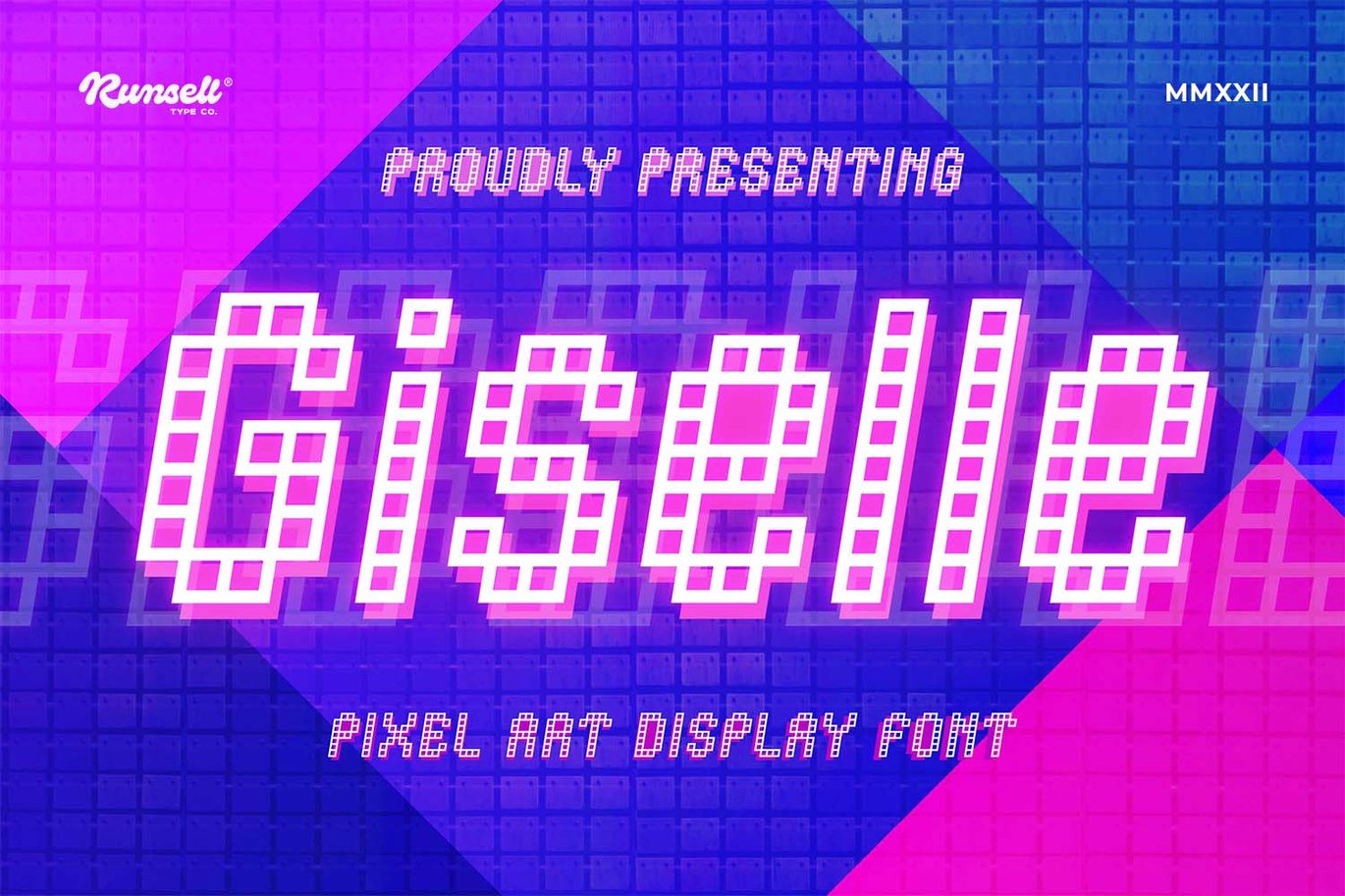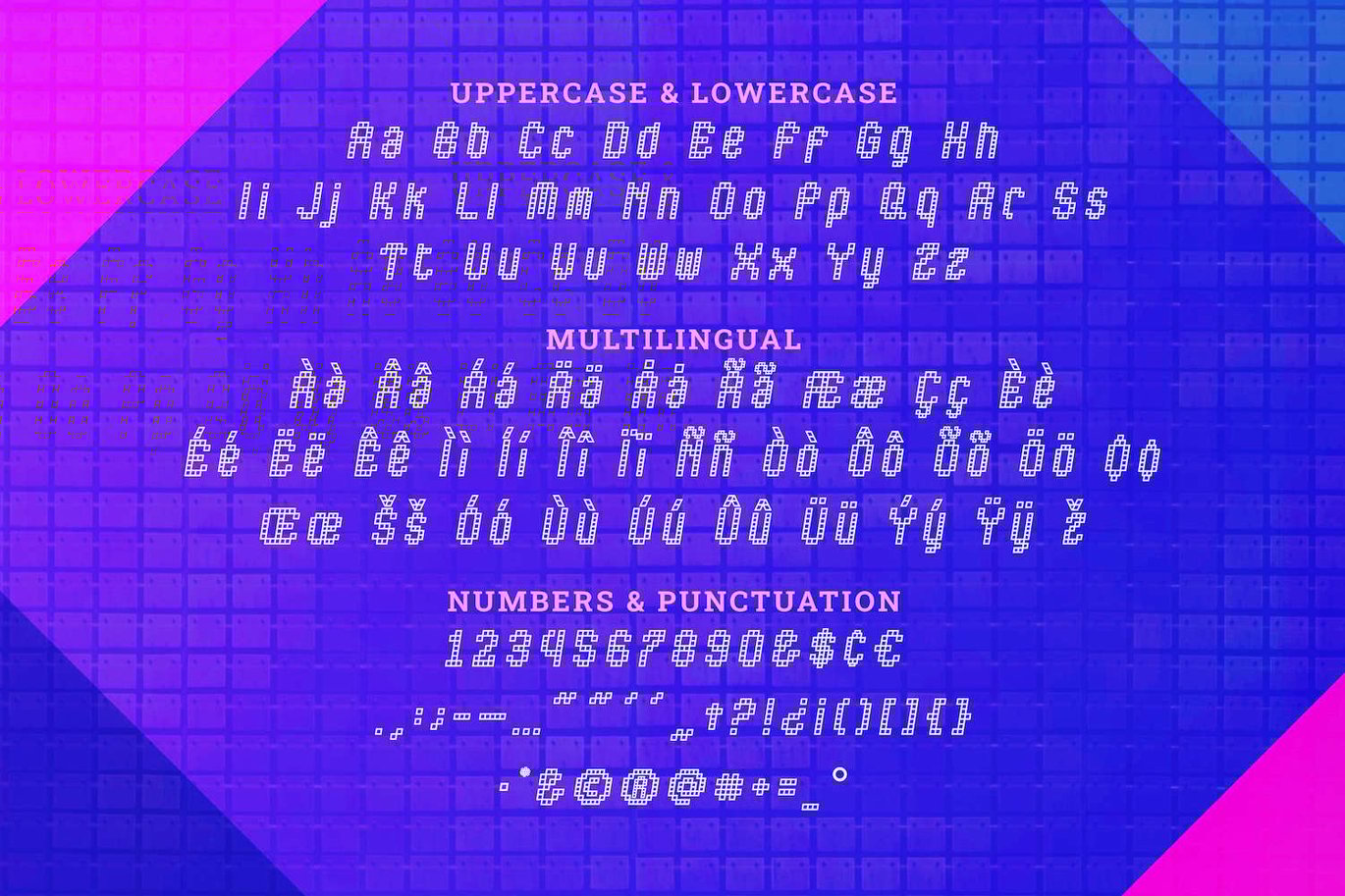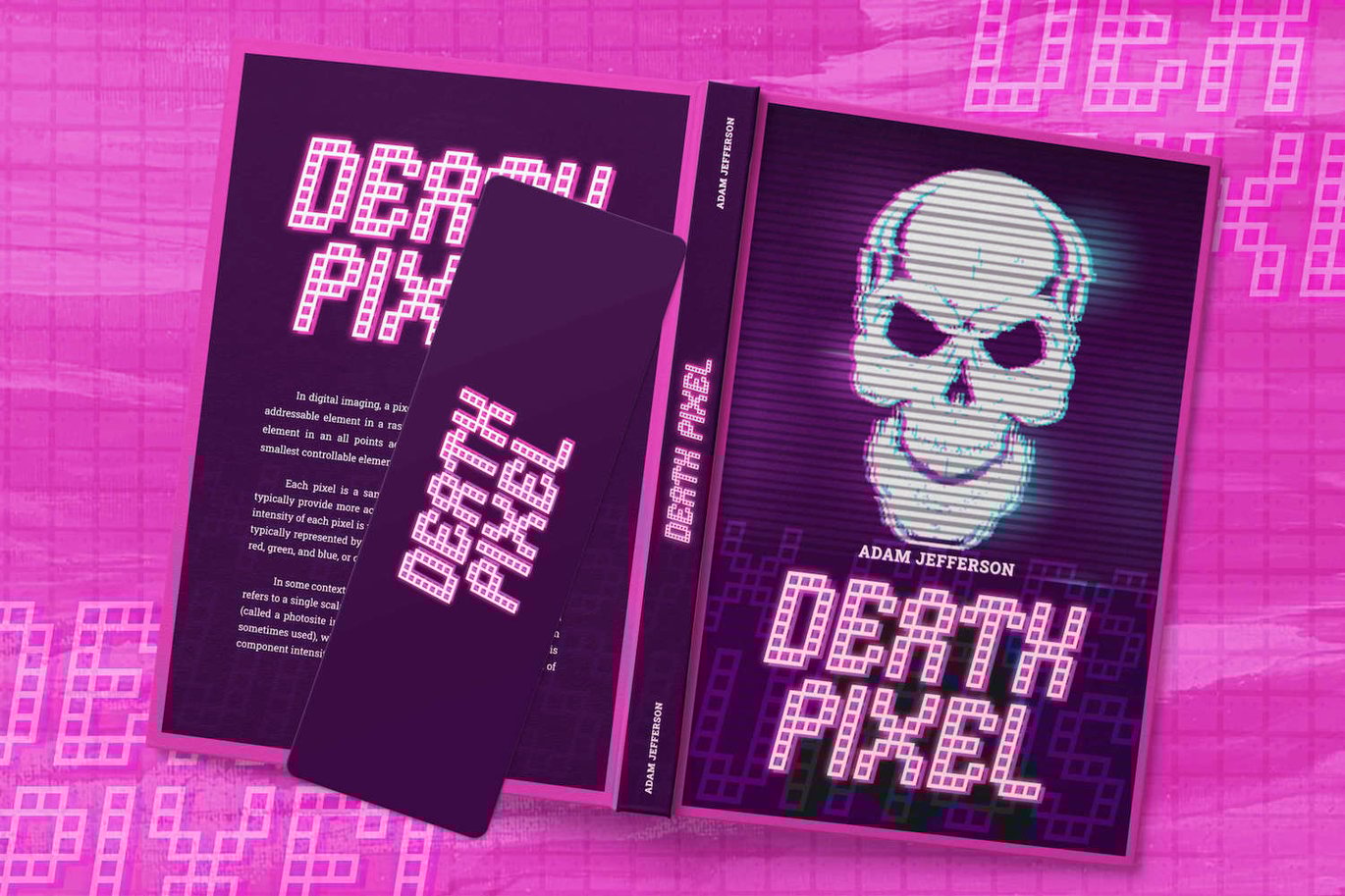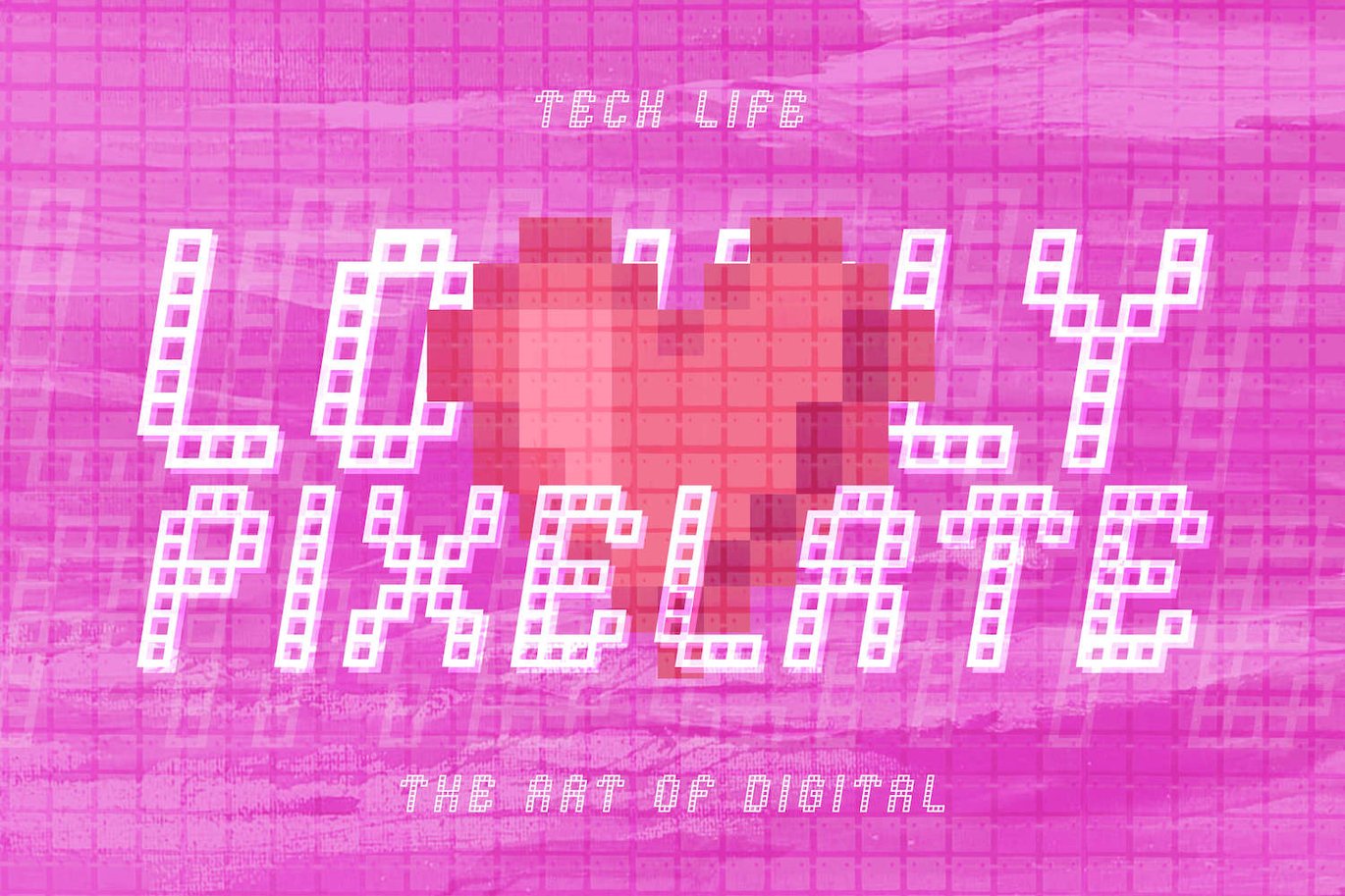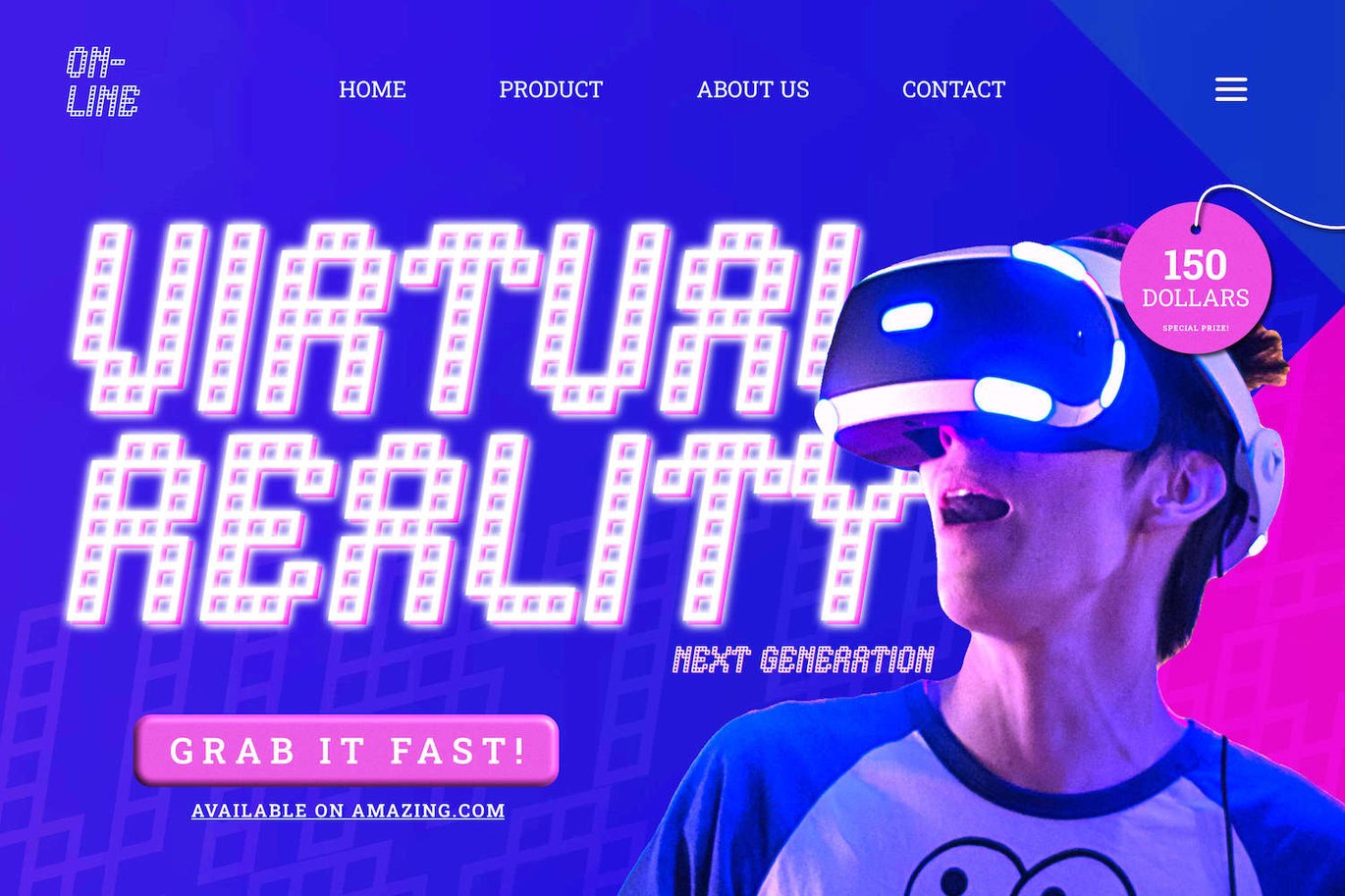
Giselle – Game Font
Presenting Giselle Font is suitable logo, branding, game, t-shirt, magazine, website, poster, headline and etc. Our fonts have Uppercase & Lowercase, Numeral & Punctuation, Multilingual support and Opentype Features. For Amazing designs you can mix with other fonts as a complement.